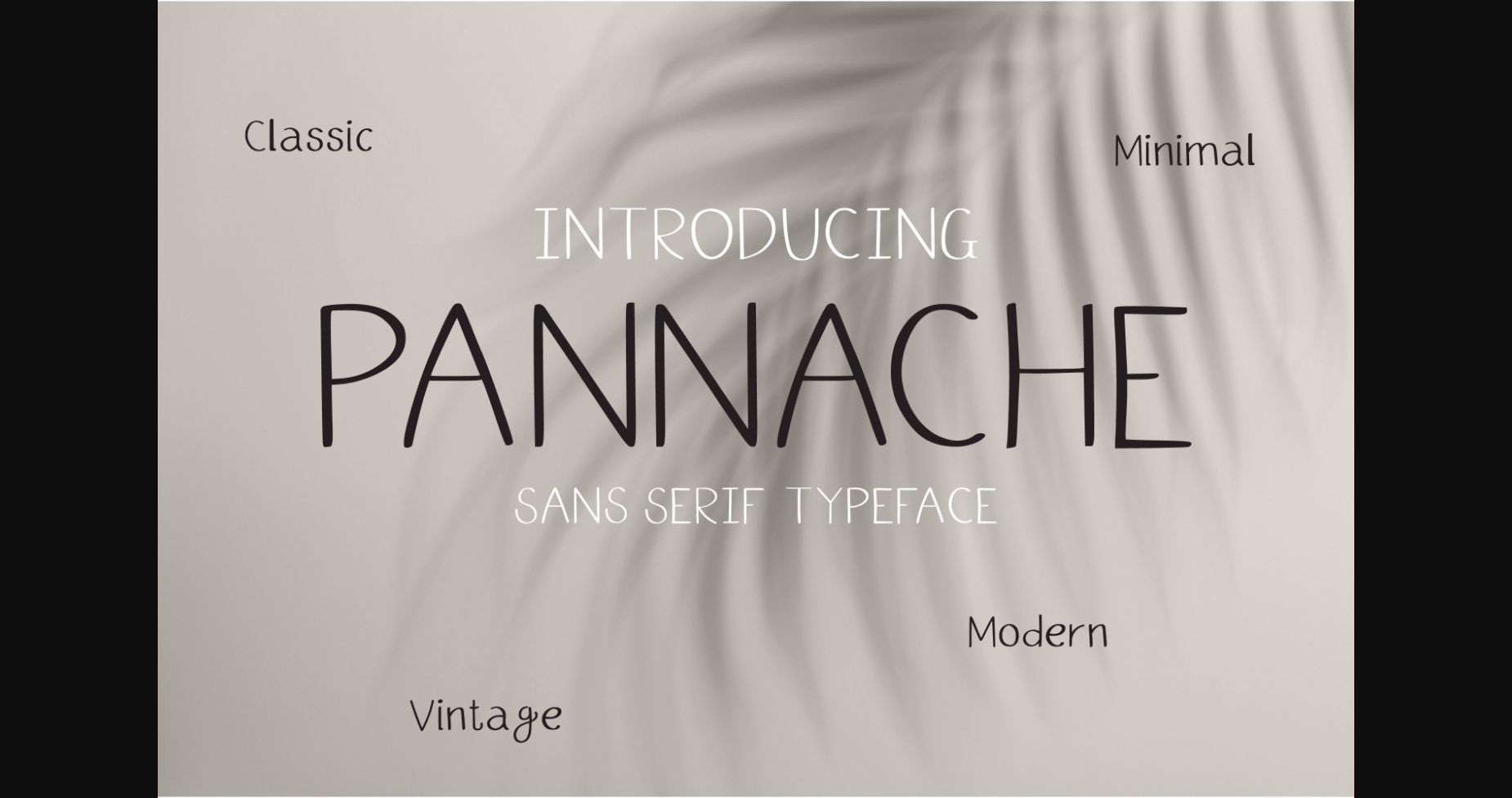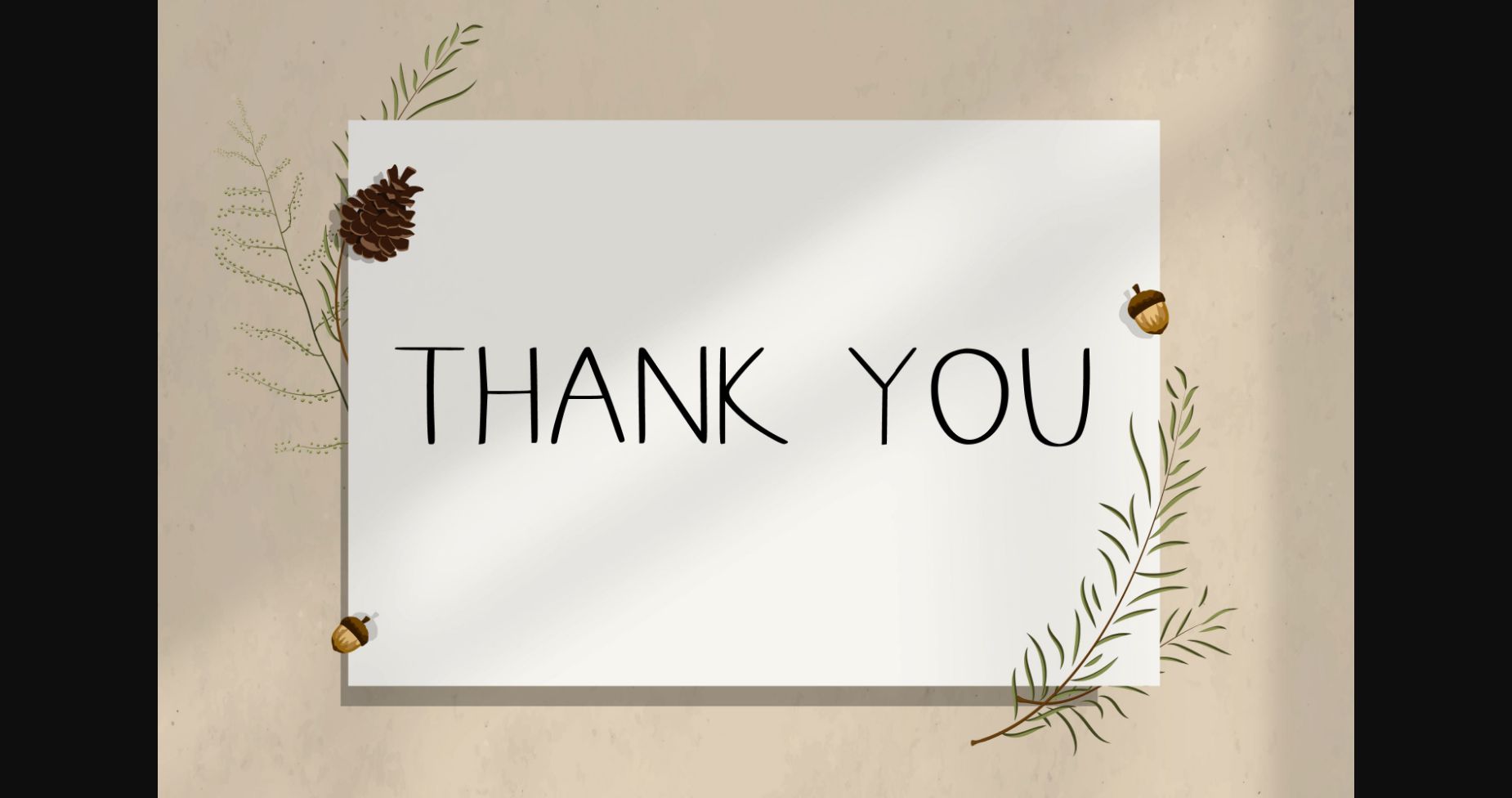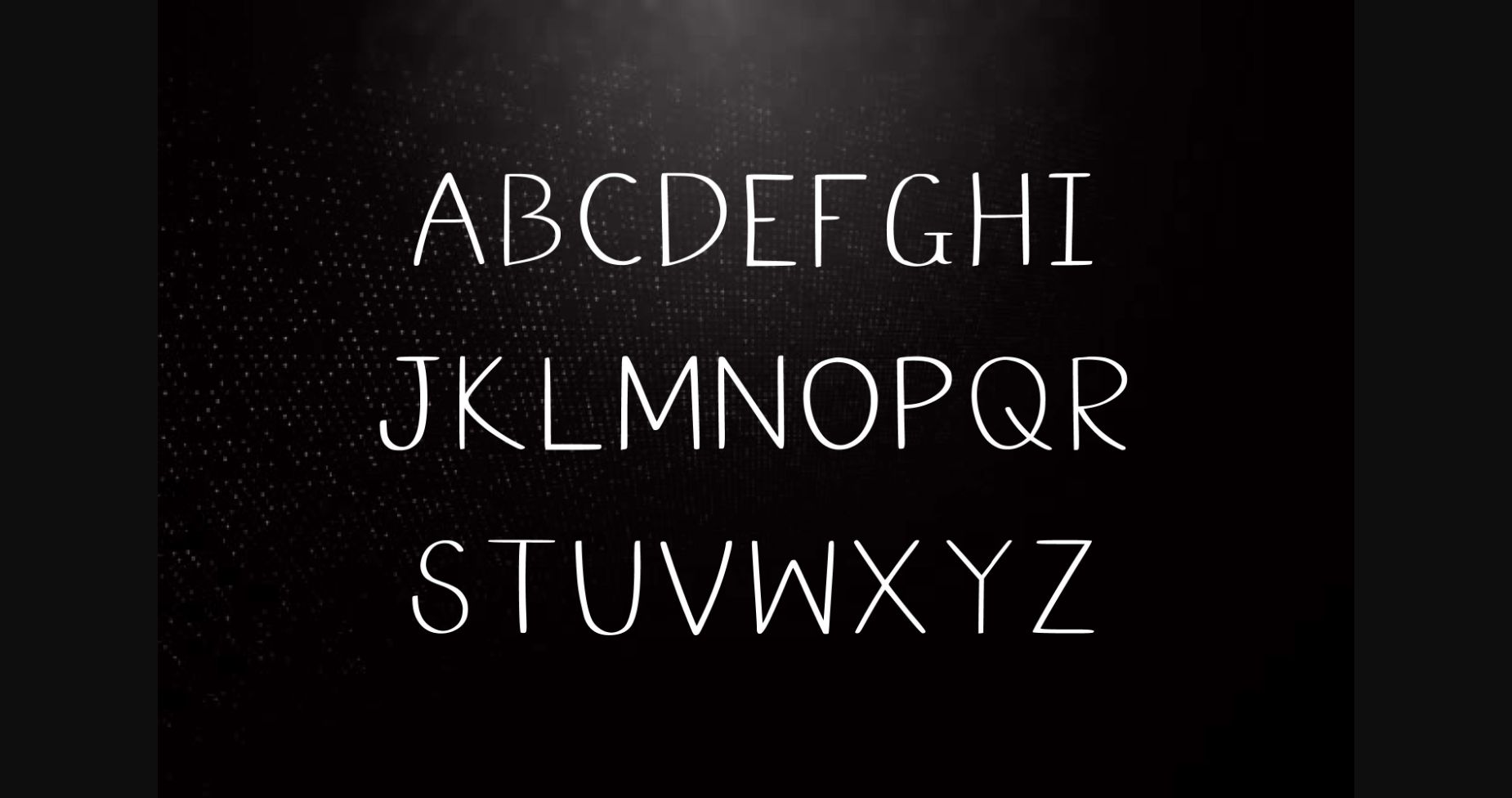
About Pannache Font
As the name suggests, Pannache is an elegant, classy, and minimalist sans serif font. It is simple and stylish, suitable for branding, logos, packaging, card-making, and other creative projects.